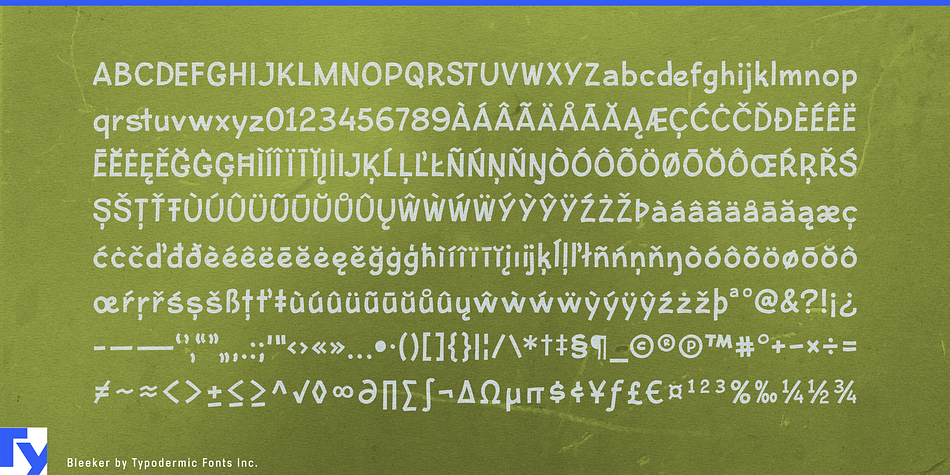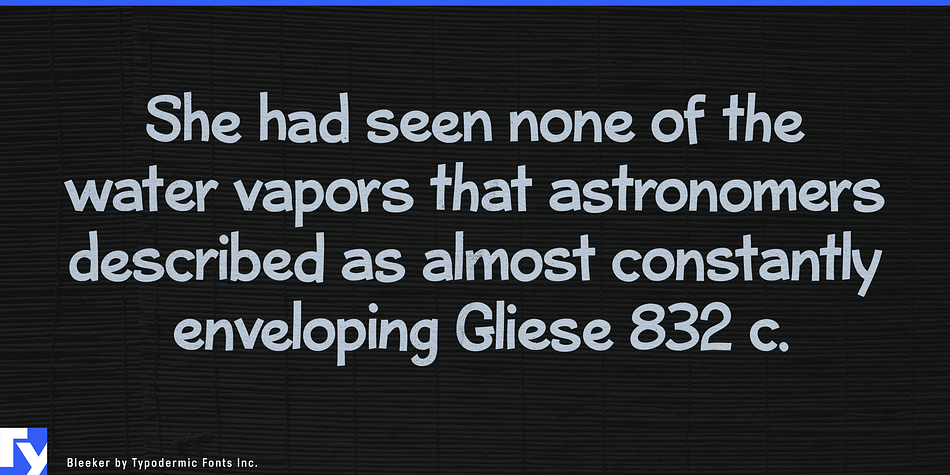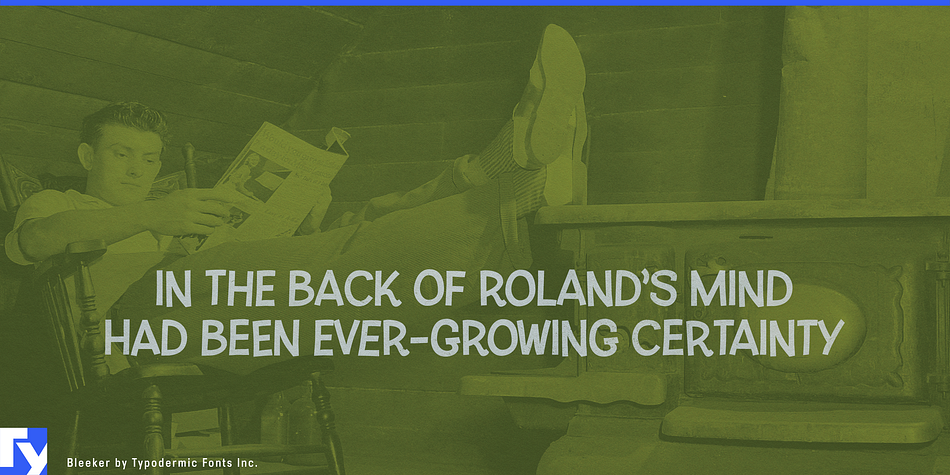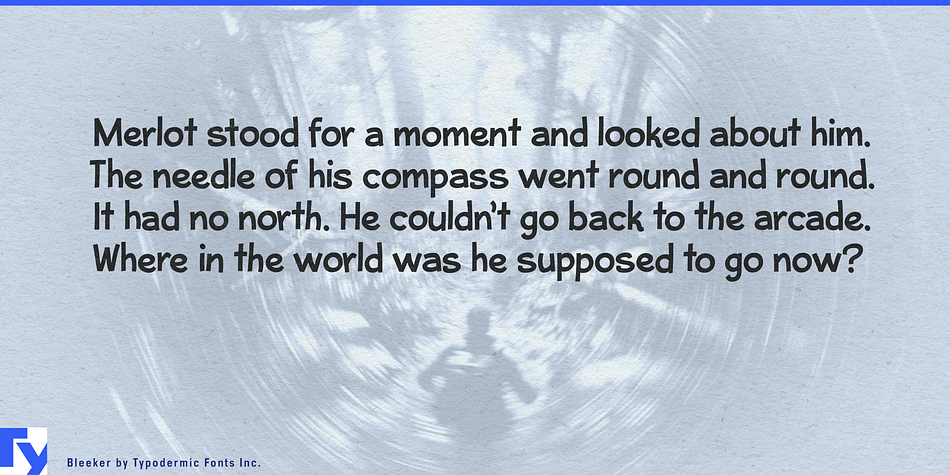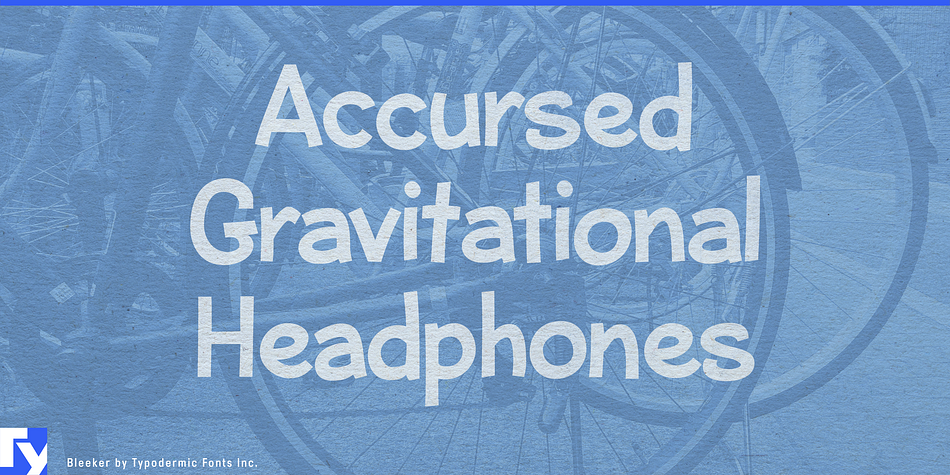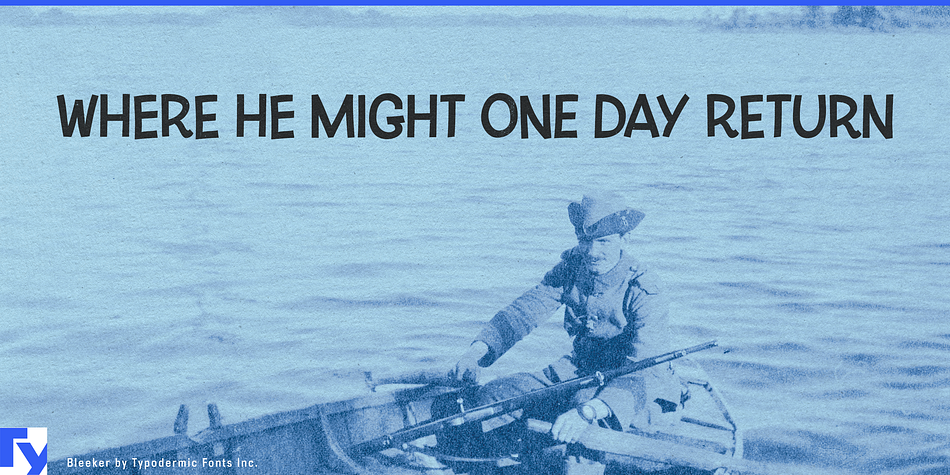
Bleeker is a comic font published by Typodermic Fonts Inc.
Meet Bleeker. Bleeker is the casual, happy-go-lucky hand-lettered font you’ve been looking for. In OpenType savvy applications, custom letter pairs can help create a more natural look.